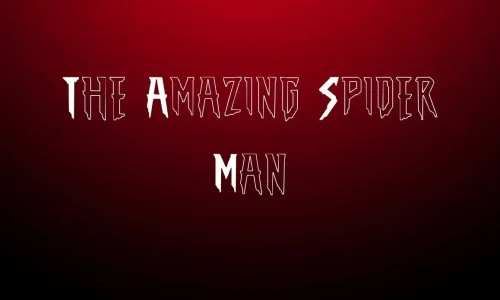
Let we are introduce the very beautiful article that has a beautiful texture and characters name Money font. This typeface is designed by the very amazing designer Spencer & Sons Co and they provide a free license for commercial use. This font is a family member of the fancy typeface.
This font is best to use on the copy-paste functions. For more classic features, you will have to use its alternative grinched font which has the same features.
Money Font Family
| Name | Money Font |
| Designer | Spencer & Sons Co |